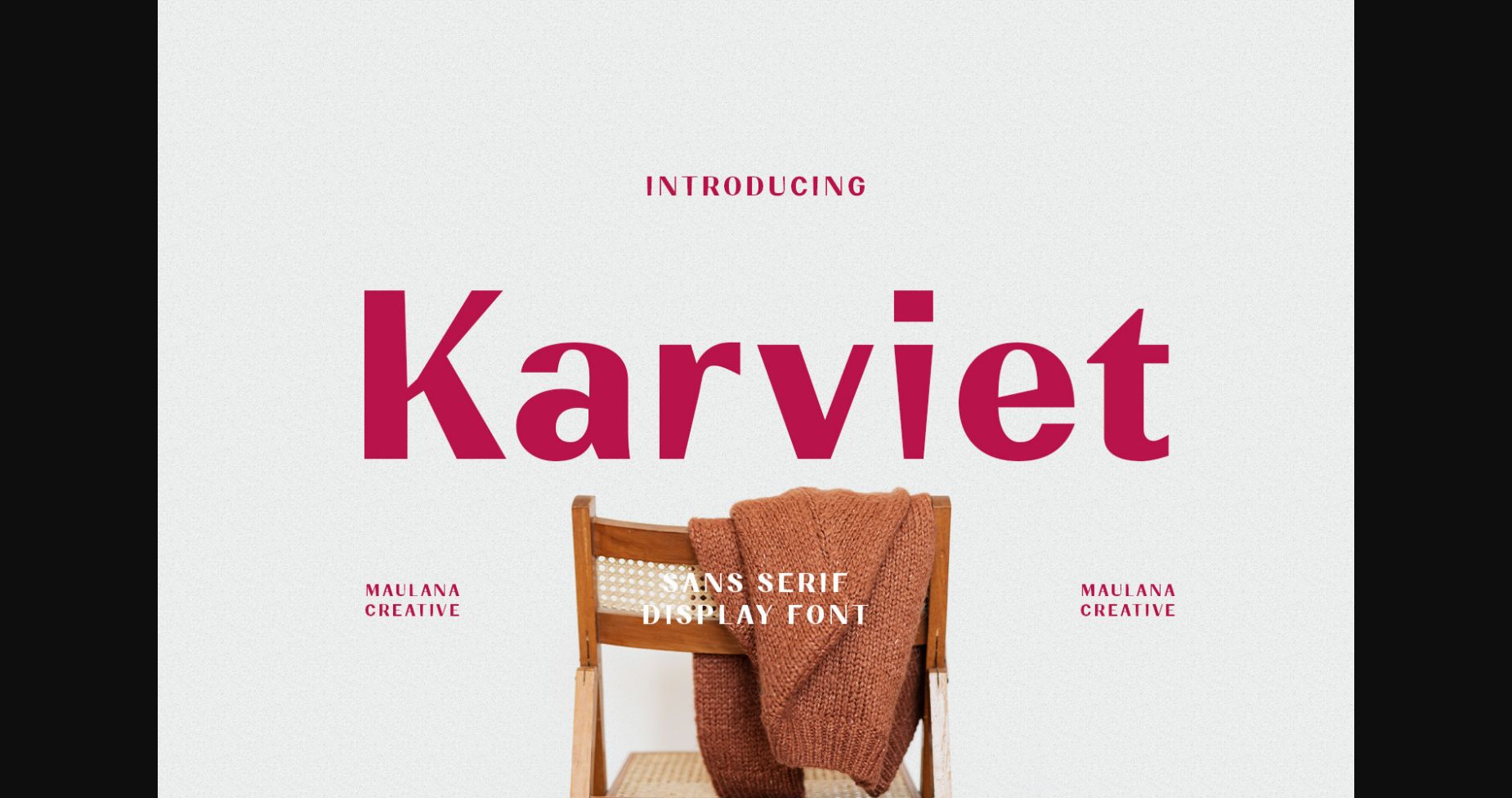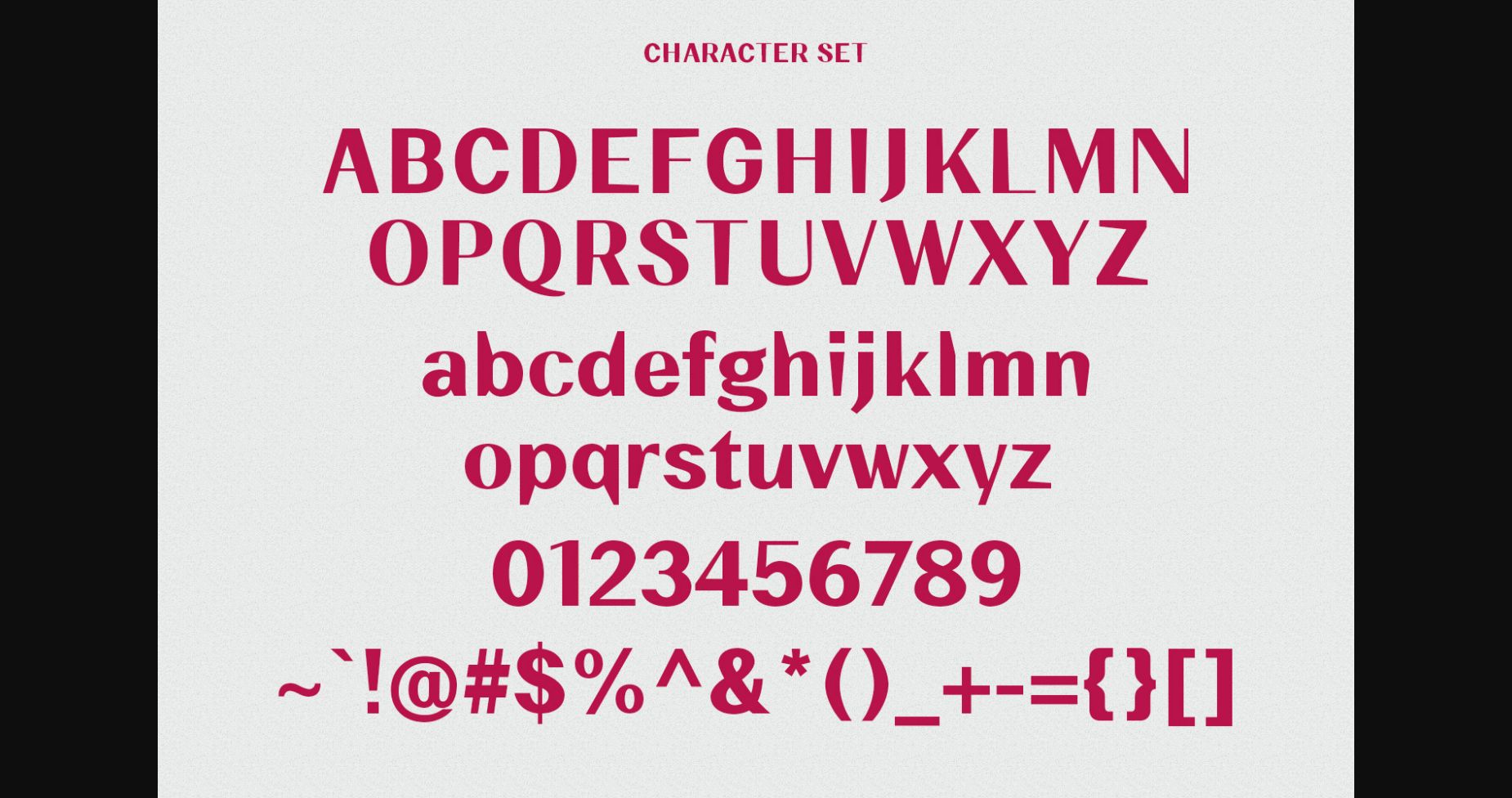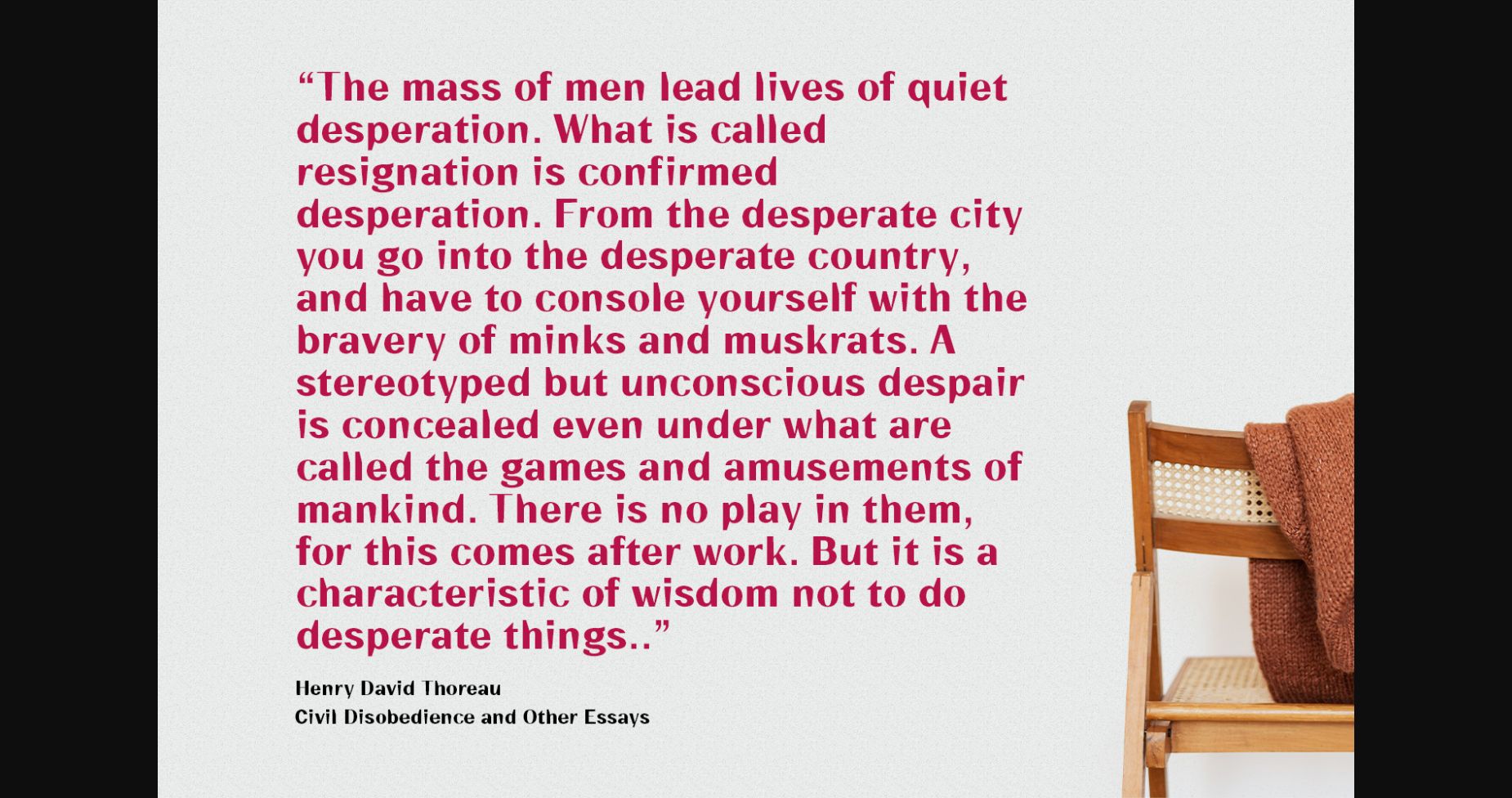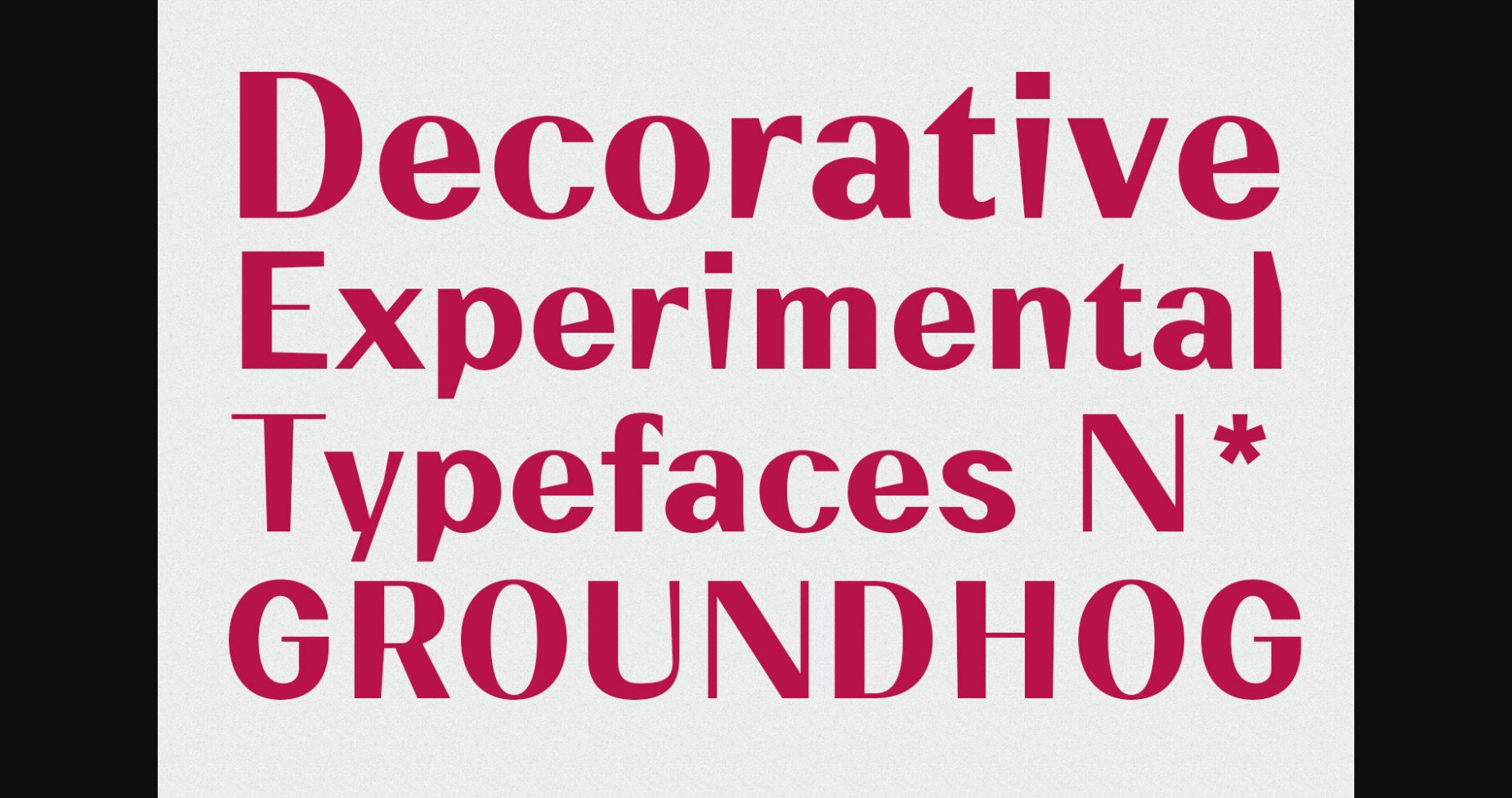
About Karviet Font
Karviet is a graceful and eye-catching sans-serif font with clean lines, subtle curves, and refined details. Its modern and minimalistic style adds an air of sophistication to any project. Ideal for creating an elegant and attractive look.